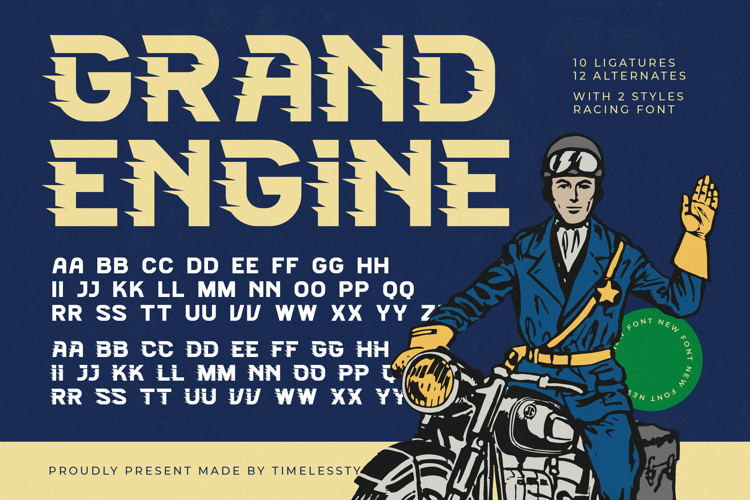
Grand Engine - Racing Display Font
Unleash exhilarating speed and dynamic energy into your designs with Font Grand Engine - Racing Display Font Sport. This commanding typeface captures the essence of velocity, featuring a distinctive, distressed effect that evokes motion blur and raw power. Its bold, uppercase letterforms are engineered to make an immediate, unforgettable impact, perfect for projects demanding an adrenaline-fueled aesthetic.
Experience unparalleled design flexibility with Font Grand Engine - Racing Display Font Sport, offering two distinct styles to perfectly match your creative vision: one clean and impactful, and another infused with its signature racing distortion. Enhanced by 10 powerful ligatures and 12 versatile alternates, this font provides abundant options for crafting truly unique and engaging headlines and branding elements. It's built for design systems that require both impact and adaptability.